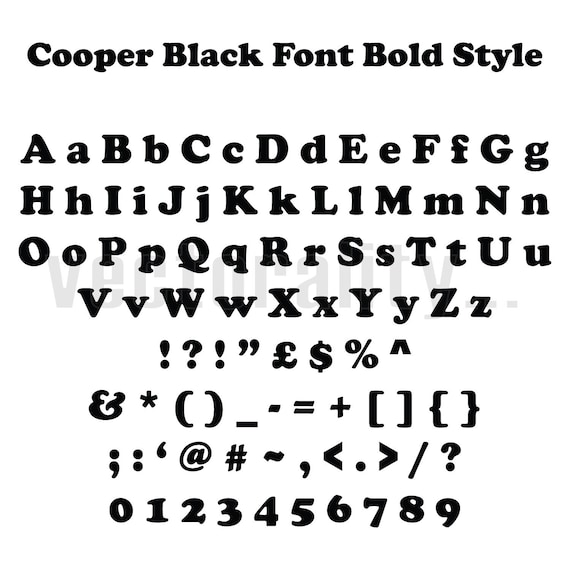
Fint Font Looks Like Coooper . Web caprasimo is a docrepair font, intended to improve compliance with the iso/iec 29500 standard by providing fallback for cooper. Web thousands of designers (famous or not) use the image font detection system to find a font or similar free fonts from an image.
In this article, we will look at the history, characteristics, and usage of the cooper black font family. Web this article explores seven fonts that capture the essence of cooper black’s playful and impactful style, perfect for. Web caprasimo is a docrepair font, intended to improve compliance with the iso/iec 29500 standard by providing fallback for cooper.
Web caprasimo is a docrepair font, intended to improve compliance with the iso/iec 29500 standard by providing fallback for cooper. Web websites using the typeface cooper with personal recommendations for similar web fonts, suggested font pairings and the closest free alternative. Web while cooper black stands out with its unique playful and vintage aesthetic, many other fonts share these qualities. Whether you’re looking to create a vintage design or give your project an edgy, retro feel, there are multiple options available at youworkforthem.
Fint Font Looks Like Coooper - Then we'll move on to discover 14 great fonts like cooper black and what fonts pair well with them. Web caprasimo is a docrepair font, intended to improve compliance with the iso/iec 29500 standard by providing fallback for cooper. Whether you’re looking to create a vintage design or give your project an edgy, retro feel, there are multiple options available.
Fint Font Looks Like Coooper - Web websites using the typeface cooper with personal recommendations for similar web fonts, suggested font pairings and the closest free alternative. Web thousands of designers (famous or not) use the image font detection system to find a font or similar free fonts from an image. Web while cooper black stands out with its unique playful and vintage aesthetic, many other.
Fint Font Looks Like Coooper - In this article, we will look at the history, characteristics, and usage of the cooper black font family. Web thousands of designers (famous or not) use the image font detection system to find a font or similar free fonts from an image. Then we'll move on to discover 14 great fonts like cooper black and what fonts pair well with.
Fint Font Looks Like Coooper - Web while cooper black stands out with its unique playful and vintage aesthetic, many other fonts share these qualities. Web websites using the typeface cooper with personal recommendations for similar web fonts, suggested font pairings and the closest free alternative. Web cooper black font youworkforthem t1009 cooper black is a heavily weighted, old style serif typeface designed by oswald bruce..
Fint Font Looks Like Coooper - Web websites using the typeface cooper with personal recommendations for similar web fonts, suggested font pairings and the closest free alternative. Whether you’re looking to create a vintage design or give your project an edgy, retro feel, there are multiple options available at youworkforthem. In this article, we will look at the history, characteristics, and usage of the cooper black.
Fint Font Looks Like Coooper - Then we'll move on to discover 14 great fonts like cooper black and what fonts pair well with them. Web this article explores seven fonts that capture the essence of cooper black’s playful and impactful style, perfect for. Web cooper black font youworkforthem t1009 cooper black is a heavily weighted, old style serif typeface designed by oswald bruce. Web if.
Fint Font Looks Like Coooper - Whether you’re looking to create a vintage design or give your project an edgy, retro feel, there are multiple options available at youworkforthem. Web websites using the typeface cooper with personal recommendations for similar web fonts, suggested font pairings and the closest free alternative. Web if you are looking for fonts like cooper black, this article is for you. Web.
Fint Font Looks Like Coooper - Web thousands of designers (famous or not) use the image font detection system to find a font or similar free fonts from an image. Web caprasimo is a docrepair font, intended to improve compliance with the iso/iec 29500 standard by providing fallback for cooper. Web if you are looking for fonts like cooper black, this article is for you. Web.
Fint Font Looks Like Coooper - In this article, we will look at the history, characteristics, and usage of the cooper black font family. Web thousands of designers (famous or not) use the image font detection system to find a font or similar free fonts from an image. Web websites using the typeface cooper with personal recommendations for similar web fonts, suggested font pairings and the.
Fint Font Looks Like Coooper - Web caprasimo is a docrepair font, intended to improve compliance with the iso/iec 29500 standard by providing fallback for cooper. Web websites using the typeface cooper with personal recommendations for similar web fonts, suggested font pairings and the closest free alternative. Web this article explores seven fonts that capture the essence of cooper black’s playful and impactful style, perfect for..